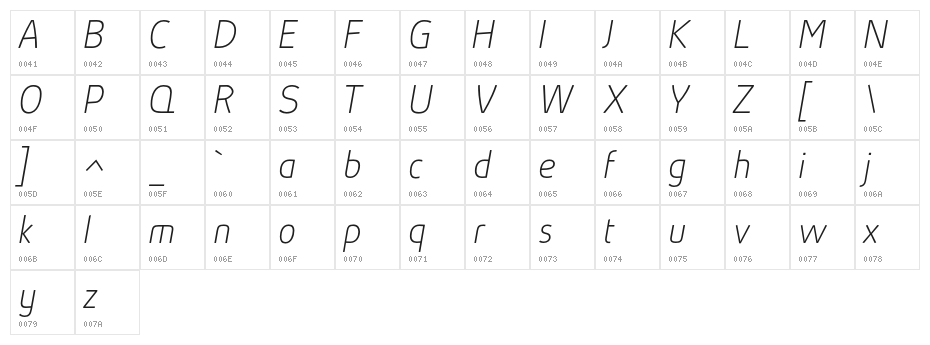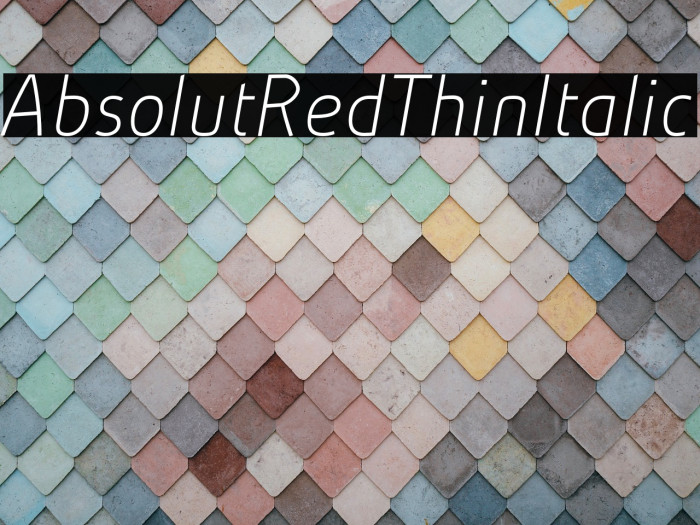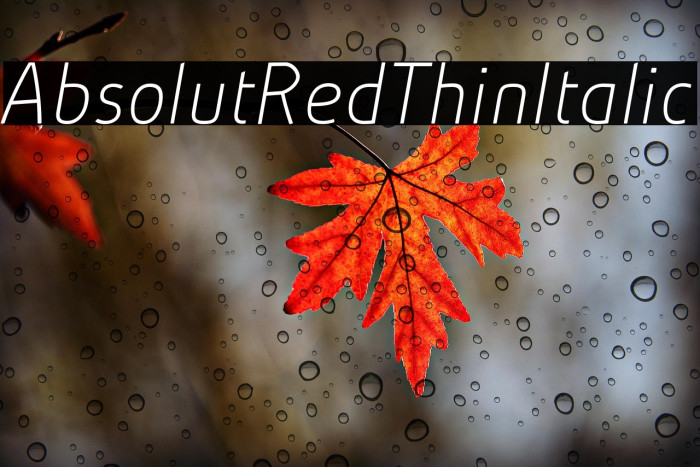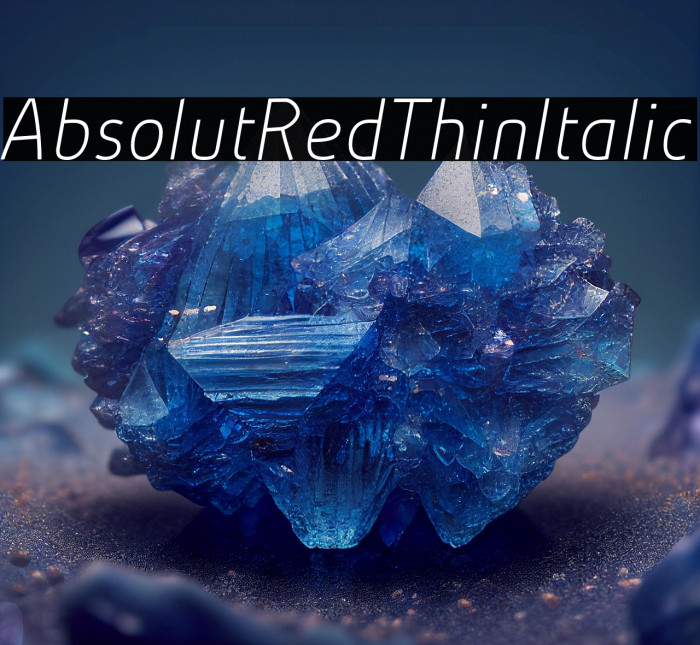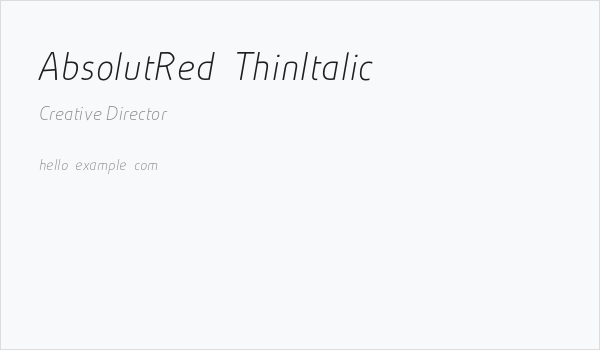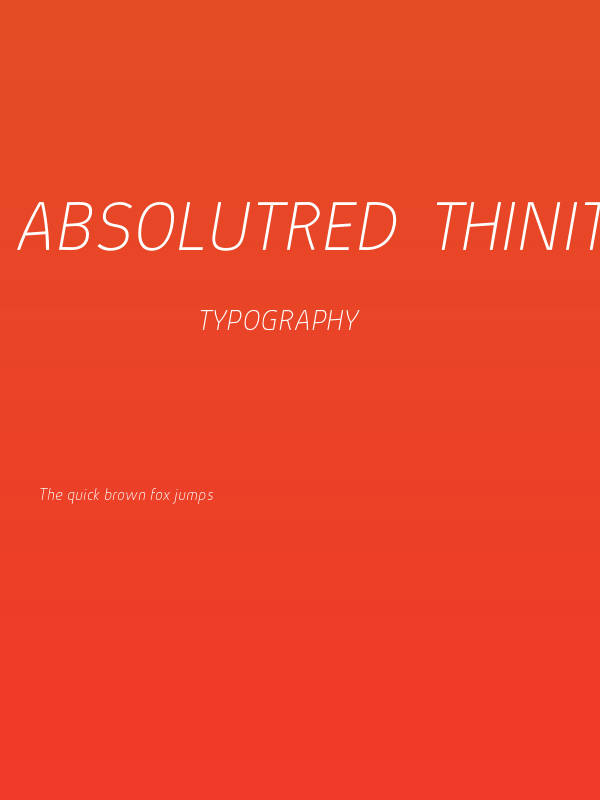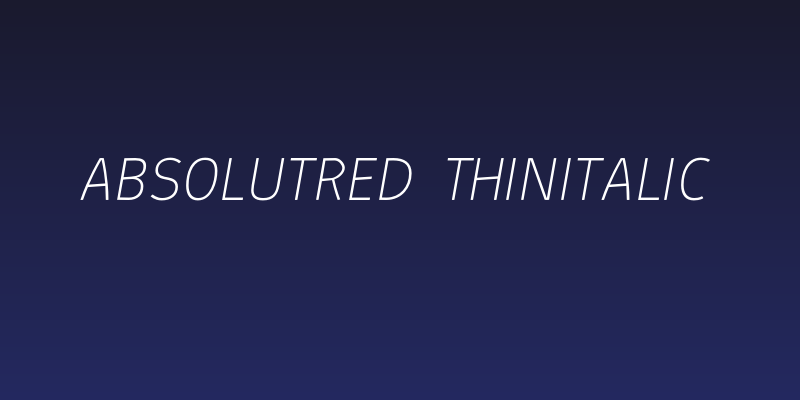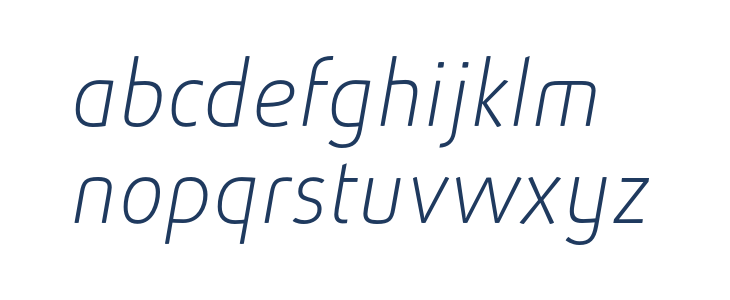
AbsolutRed-ThinItalic Font
AbsolutRed-ThinItalic Description
This font presents a sleek and modern aesthetic with its thin, italicized characters. The design is characterized by clean lines and a slight slant, giving it a dynamic and contemporary feel. The uppercase letters maintain a consistent height, while the lowercase letters exhibit a harmonious balance in their proportions. The numerals are clear and legible, complementing the overall style. Special characters are thoughtfully integrated, ensuring versatility across various applications. The font's minimalistic approach makes it suitable for modern design projects that require a touch of elegance and sophistication.